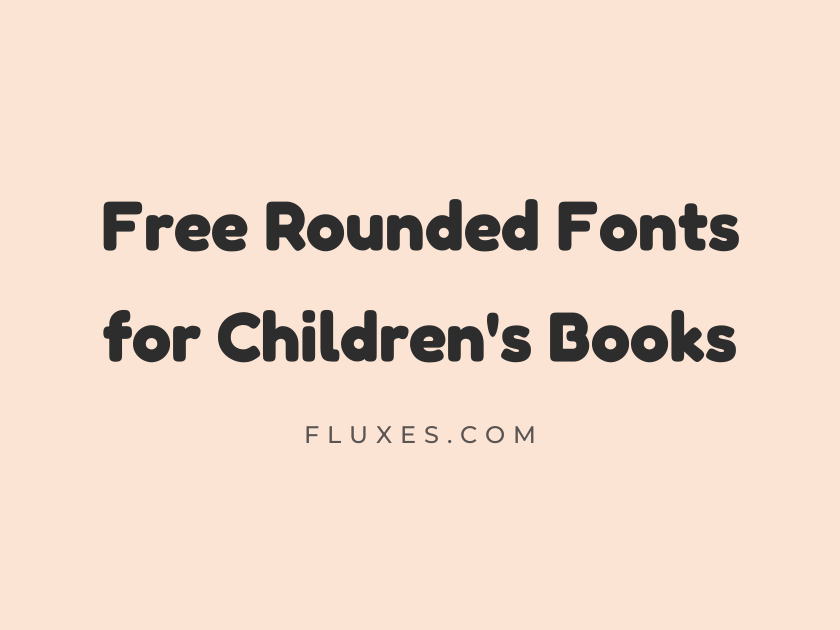
59 Best Free Rounded Fonts for Children’s Books
Rounded fonts do a lot of quiet emotional work in children’s publishing. Soft terminals and bouncy proportions feel approachable rather than authoritative, which is exactly the tone a picture book cover or an early reader needs. Whether you’re designing a storybook title, labeling a board book, or setting body copy that a six-year-old can sound out without strain, a good rounded font from Google Fonts can replace expensive licensed options like VAG Rounded or Cooper at no cost at all.
The fonts gathered here range from bubbly display faces built for shouting a title across a cover to calm, open sans-serifs made for long stretches of read-aloud text. Some lean toward handwriting, mimicking a teacher’s printing on a classroom wall; others are pure geometric candy. All of them share that friendly, rounded warmth that makes a page feel safe to a young reader.
1. Fredoka
Fredoka is practically the mascot of rounded, kid-friendly typography online, and for good reason. Its circular dots, plump curves, and generous x-height give it an irresistibly cheerful voice that works equally well on a book cover or a nursery wall decal.
2. Baloo 2
Chunky and confident, Baloo 2 has enough visual weight to anchor a cover title while still feeling soft around every corner. It pairs naturally with a lighter rounded sans for interior text.
3. Chewy
Chewy looks like it was drawn with a crayon and a steady hand, all inflated curves and cartoonish charm. It’s best reserved for short bursts, logos, chapter openers, and titles, since its heavy personality gets overwhelming in long passages.
4. Bubblegum Sans
This one lives up to its name, stretchy and playful with a hand-inflated quality. It suits younger-skewing picture books where the whole design should feel like a party.
5. Luckiest Guy
Luckiest Guy is a thick, marker-drawn display face with a comic-book swagger. It reads best in all caps at large sizes, ideal for a cover word that needs to shout.
6. Lilita One
Smoother and slightly more restrained than some of its bubble-lettered cousins, Lilita One still carries plenty of rounded punch. It works nicely for series branding since it stays legible even when scaled down for a spine.
7. Boogaloo
Boogaloo has an easy, swinging rhythm to its curves that feels almost musical. It’s a strong pick for titles about movement, dance, or anything with a bounce in its step.
8. Sniglet
Sniglet is soft and round without tipping into cartoonish extremes, which makes it more versatile than most novelty display fonts. It holds up well at medium sizes, so it can serve as both a heading and a short callout font within the same book.
9. Rammetto One
There’s a puffy, inflated quality to Rammetto One that makes it feel almost three-dimensional on the page. Use it sparingly for a single big word; its density makes long lines feel cramped.
10. Modak
Originally designed for Devanagari script, Modak’s Latin companion carries the same plump, joyful roundness. It has real festival energy, bright and celebratory, and suits covers about parties, holidays, or big family gatherings.
11. Concert One
Concert One keeps its curves tidy and its counters open, giving it a cleaner, more grown-up roundness than most novelty display fonts. It’s a good middle ground when a cover needs personality without going full cartoon.
12. Cherry Cream Soda
This one has a nostalgic, soda-fountain charm, thick and syrupy with softened edges. It fits vintage-styled picture books particularly well.
13. Slackey
Slackey has a slouchy, low-slung roundness that reads as casual and fun rather than polished. It’s a niche choice best suited to books with a scrappy, playground energy.
14. Grandstander
A variable font with a huge range of weights, Grandstander lets you dial the roundness and boldness up or down within one consistent family. That flexibility makes it handy for books that need a whole typographic system, covers, chapter titles, and captions, without switching fonts.
15. Ranchers
Ranchers has a squat, energetic bounce with a slight wobble to its baseline that suggests motion. It works well for action-driven stories aimed at slightly older young readers.
Finally, keep contrast in mind. A heavy, rounded display font next to a light, open rounded sans creates the kind of friendly hierarchy that makes a children’s book easy to browse and easy to read aloud.
Rounded fonts carry a warmth that few other type styles can match, and the Google Fonts library now offers more than enough free, high-quality options to typeset an entire children’s book without spending a cent. Whichever combination you choose, let the roundness do its job: making the page feel like an invitation rather than an instruction.